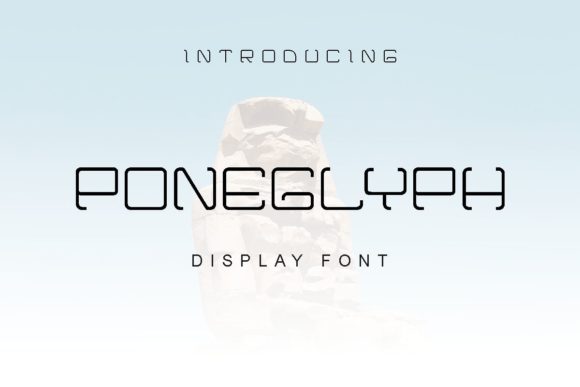
Harness the allure of Poneglyph, a captivating display font that exudes modernity. Its suave contours and striking presence make it the perfect choice for design projects seeking a touch of sophistication. Unleash your creativity and let Poneglyph weave its magic into your designs, leaving a lasting impression on all who behold it. Embrace the visual symphony of Poneglyph and witness the transformation of your designs into masterpieces.
Journey into the realm of visual enchantment with Poneglyph, a font that captivates imaginations and leaves a trail of aesthetic splendor in its wake. Its meticulously crafted characters dance harmoniously, creating an aura of elegance and allure. Let Poneglyph be your guide as you embark on a creative odyssey, transcending the boundaries of the ordinary and stepping into the realm of the extraordinary.
Ignite your passion for design with Poneglyph, the font that sets your imagination ablaze. Its sleek lines and alluring curves are a symphony of visual delight, inviting you to explore the depths of your creativity. With Poneglyph as your companion, you'll discover a world of limitless possibilities, where every design project becomes a canvas for self-expression and artistic triumph. Dare to dream, dare to create, and let Poneglyph be the catalyst for your artistic revolution.